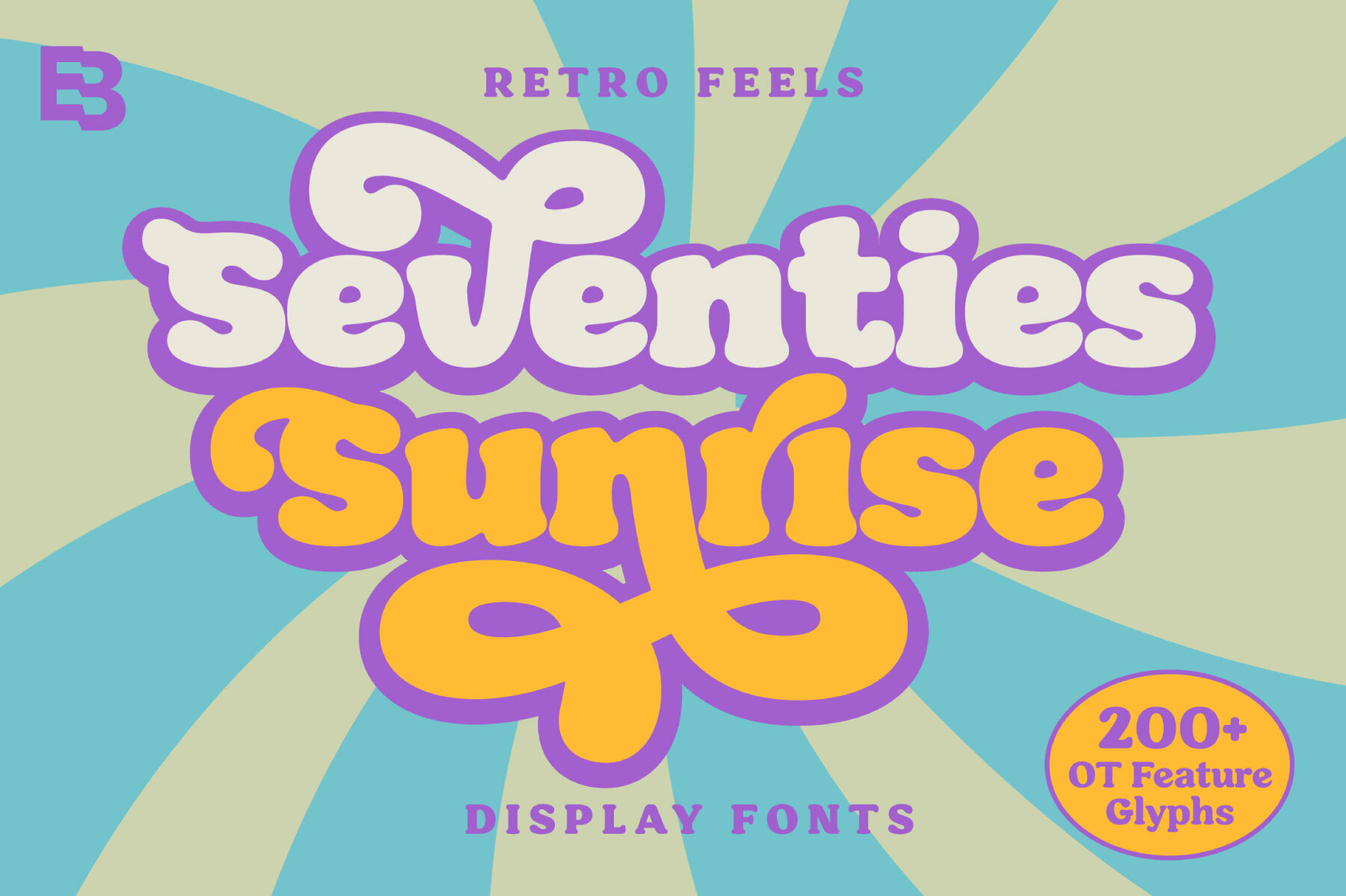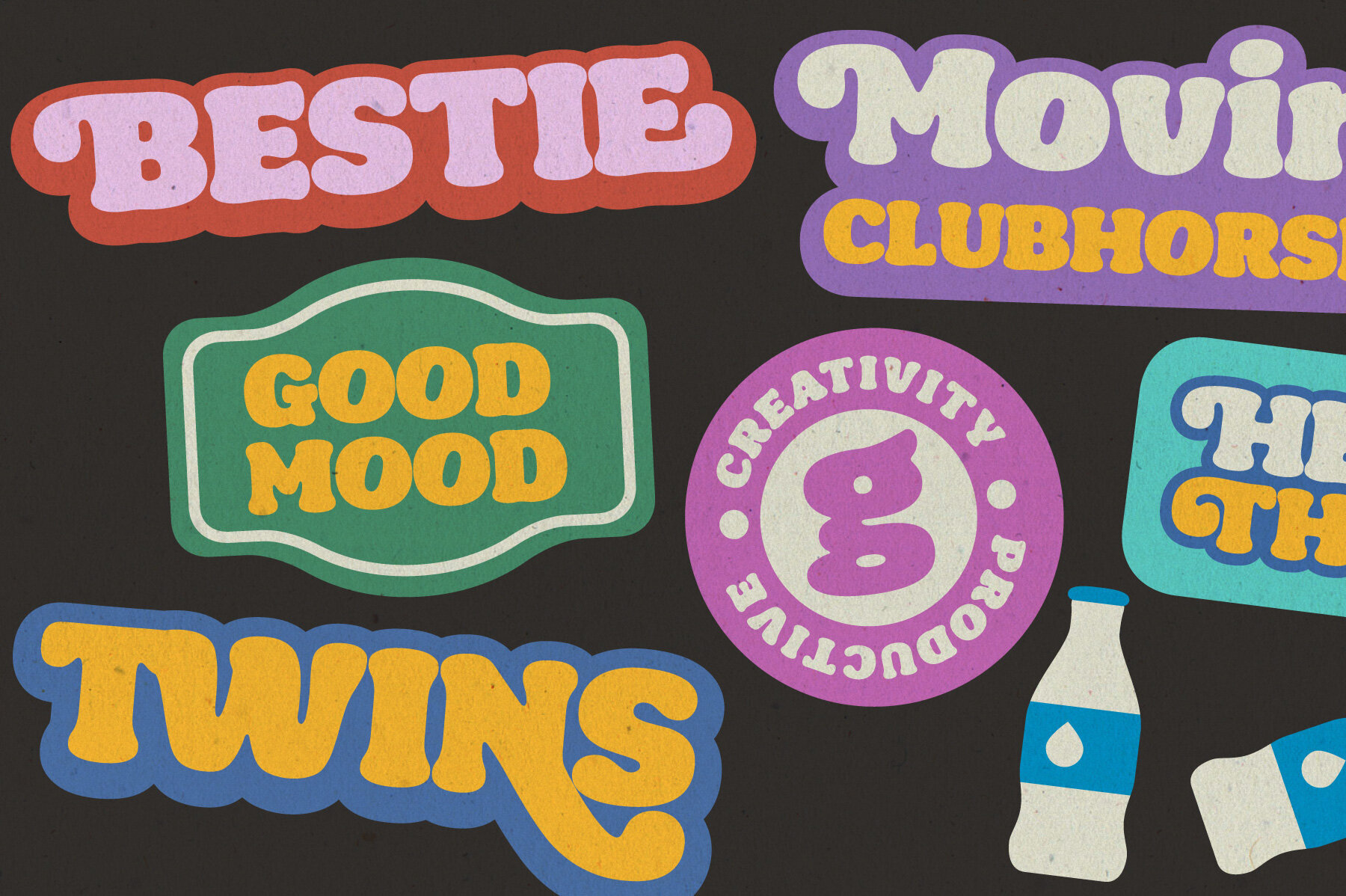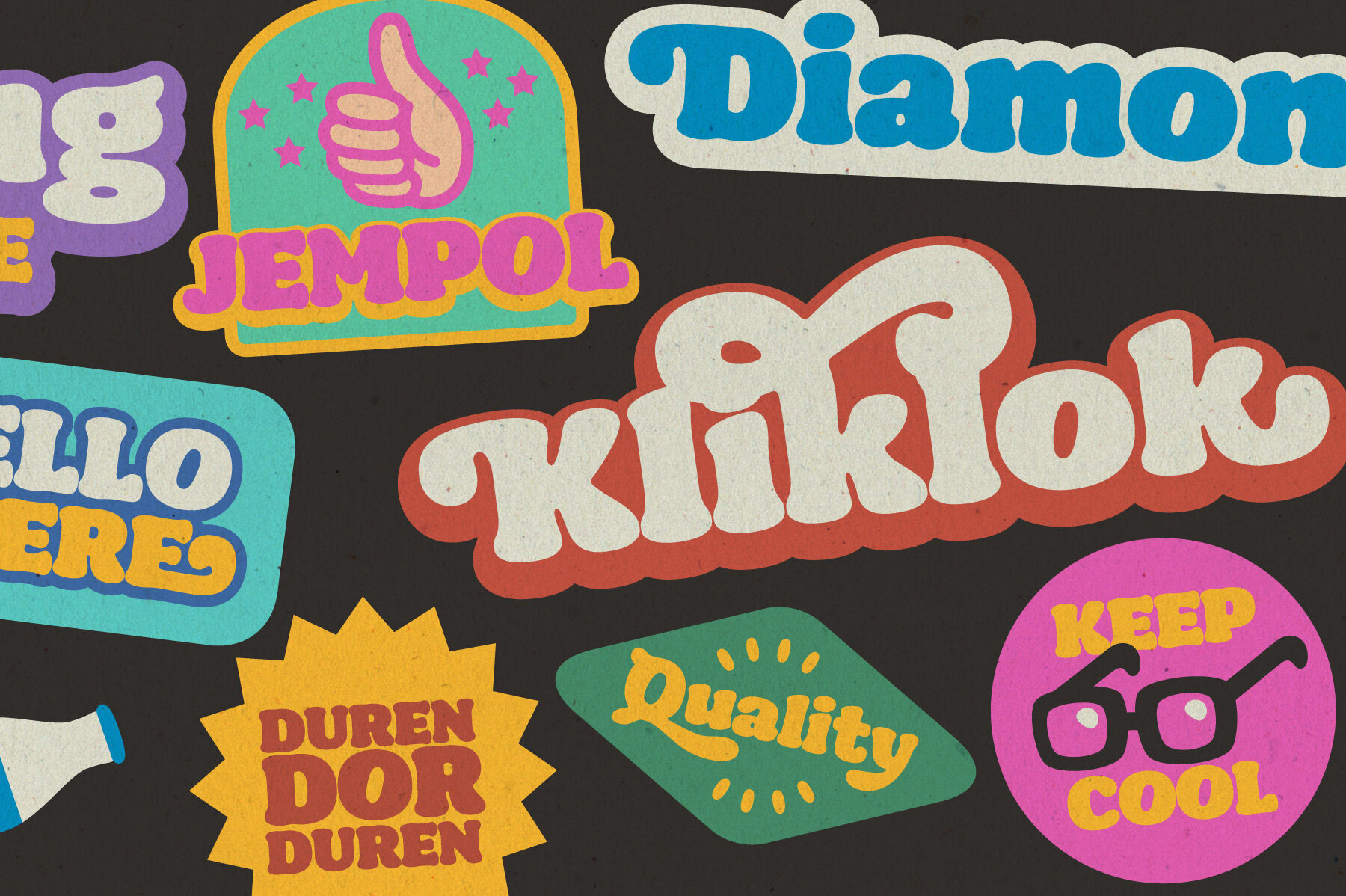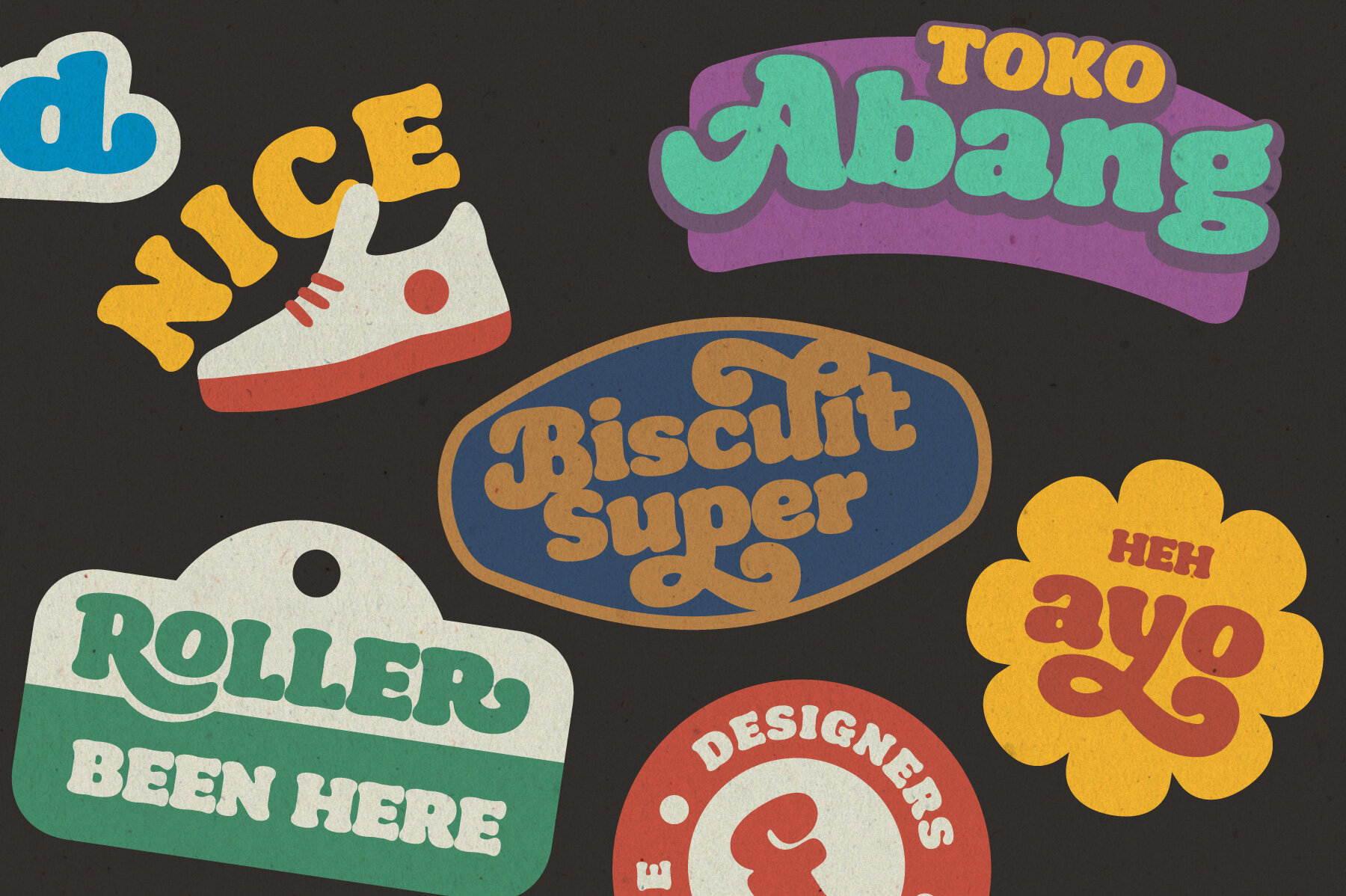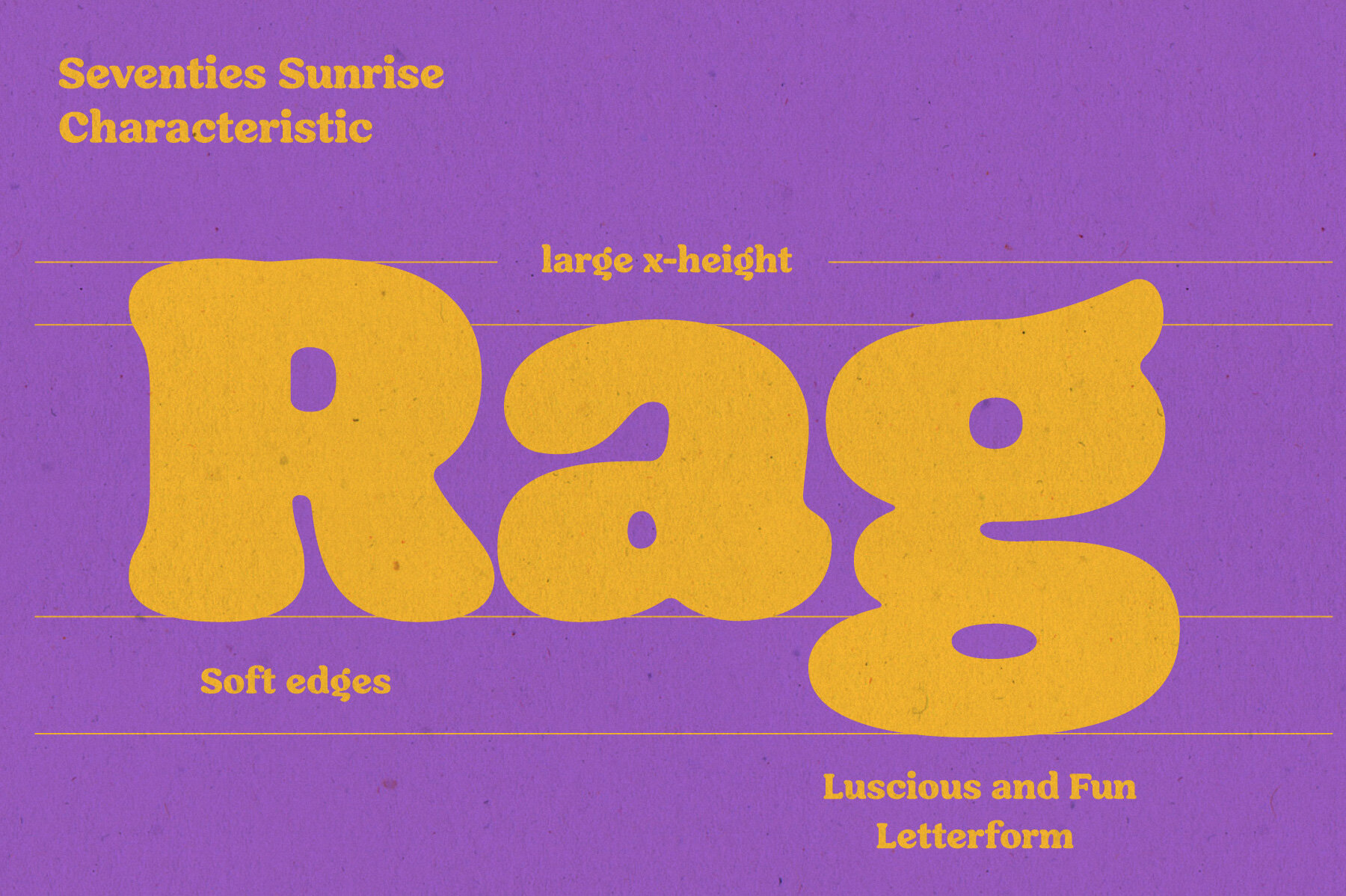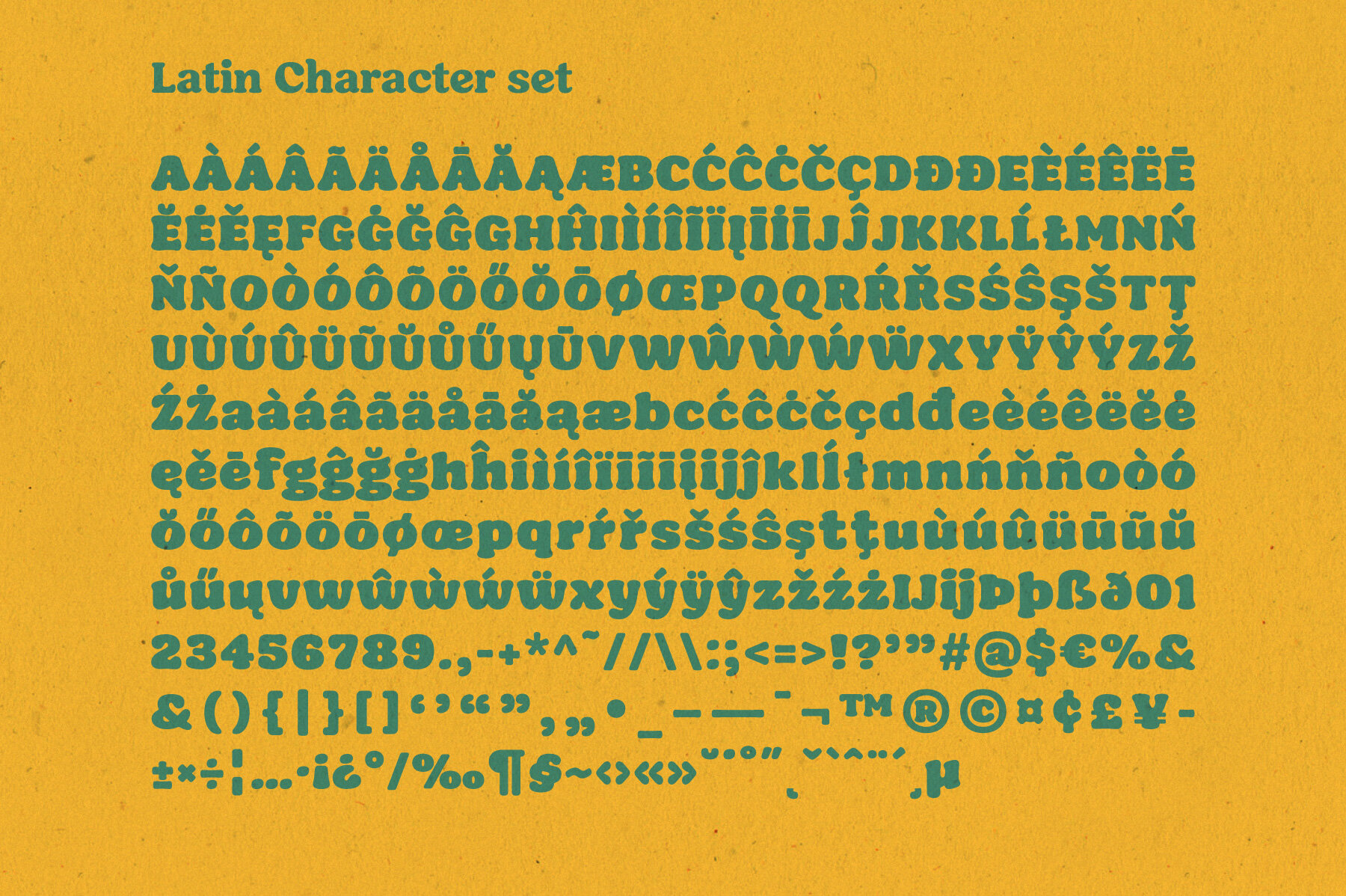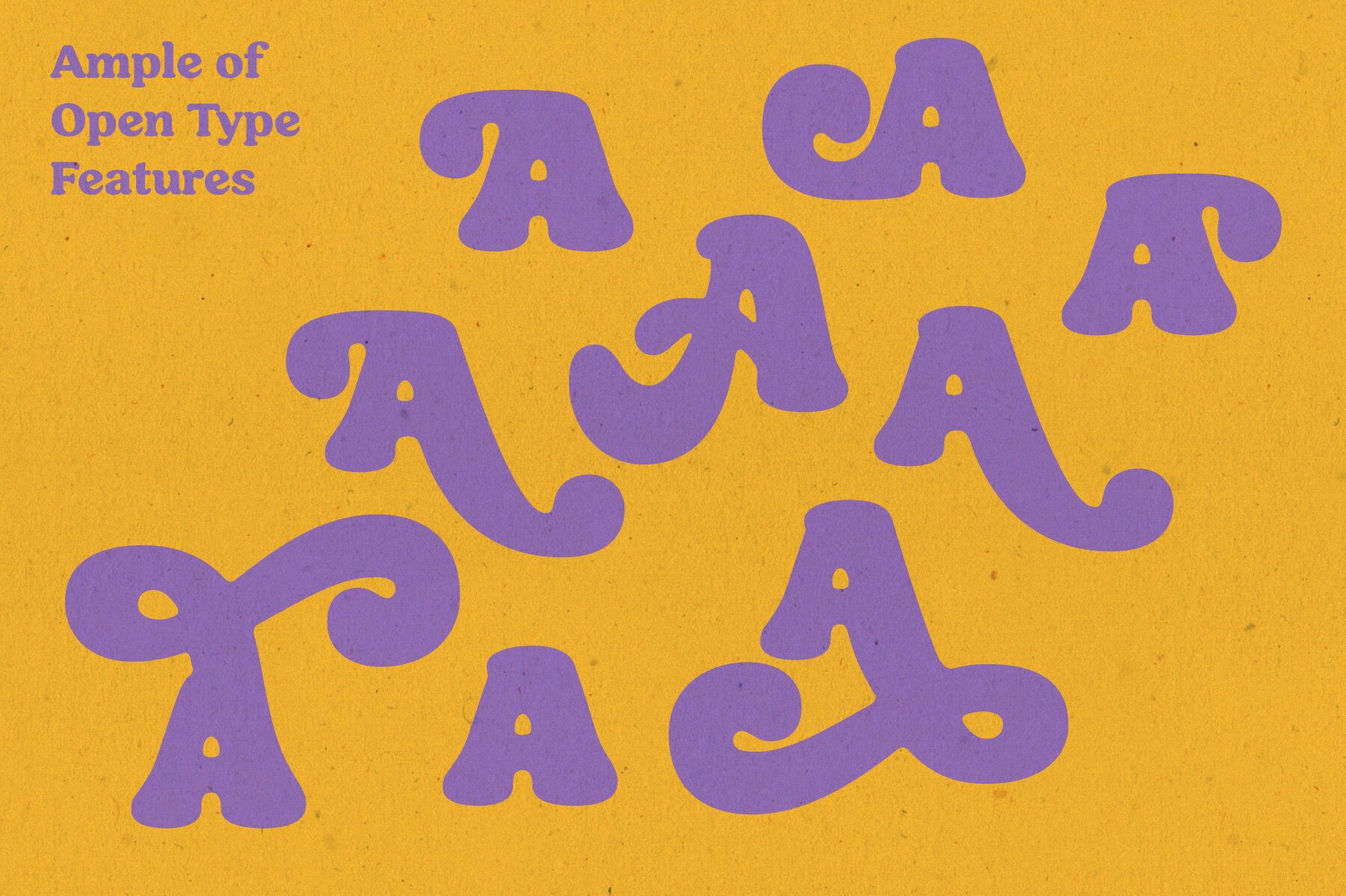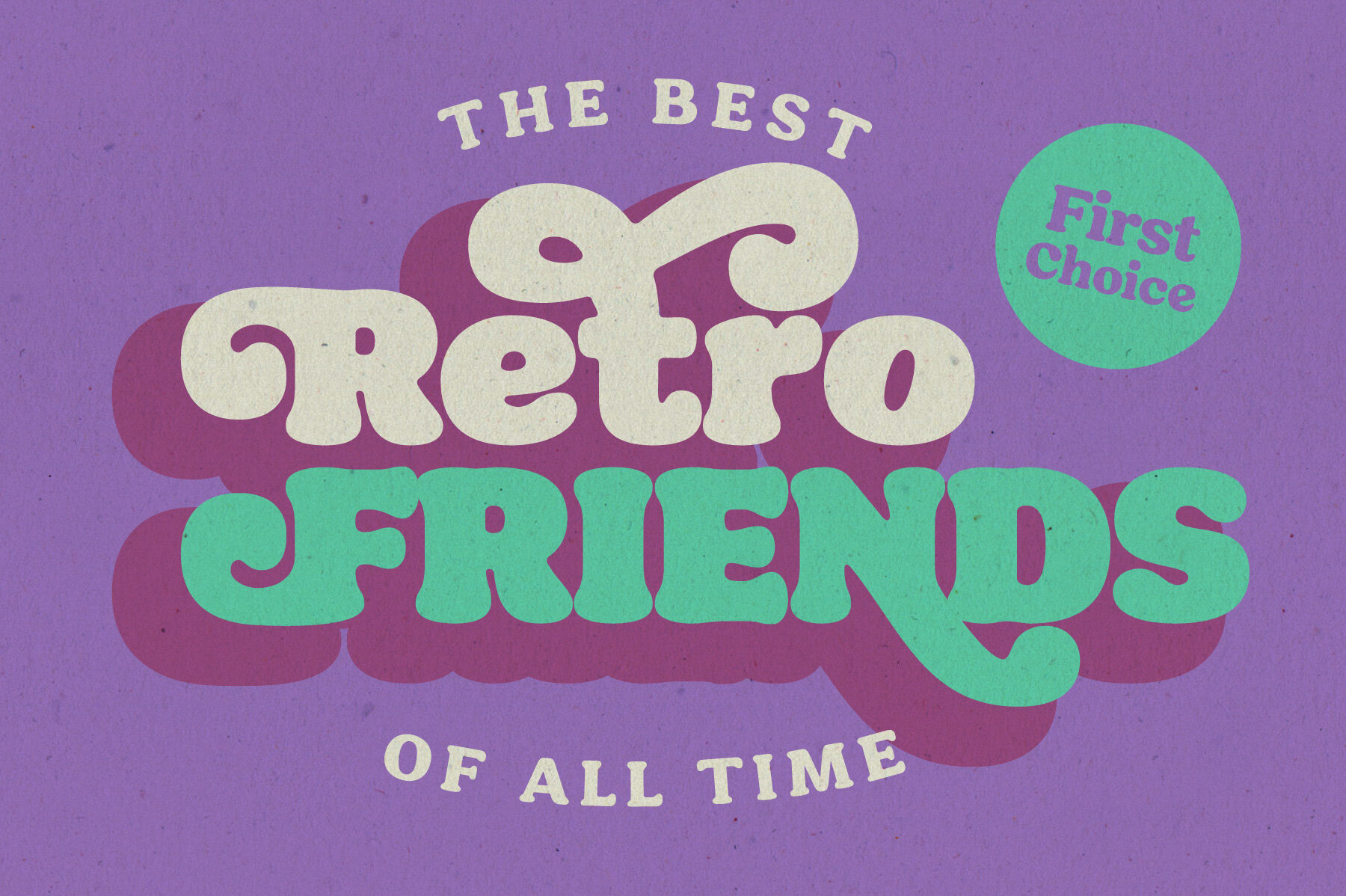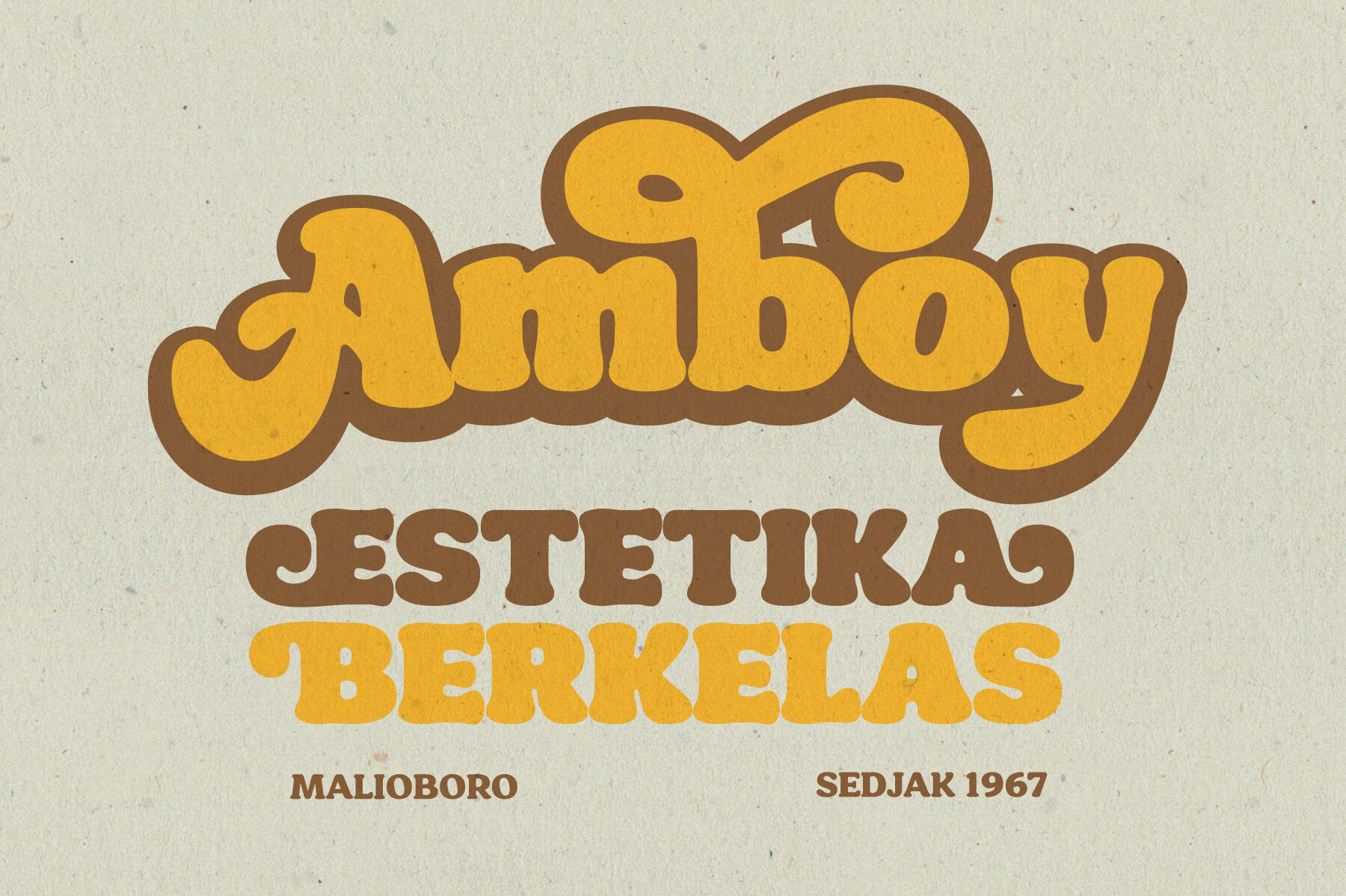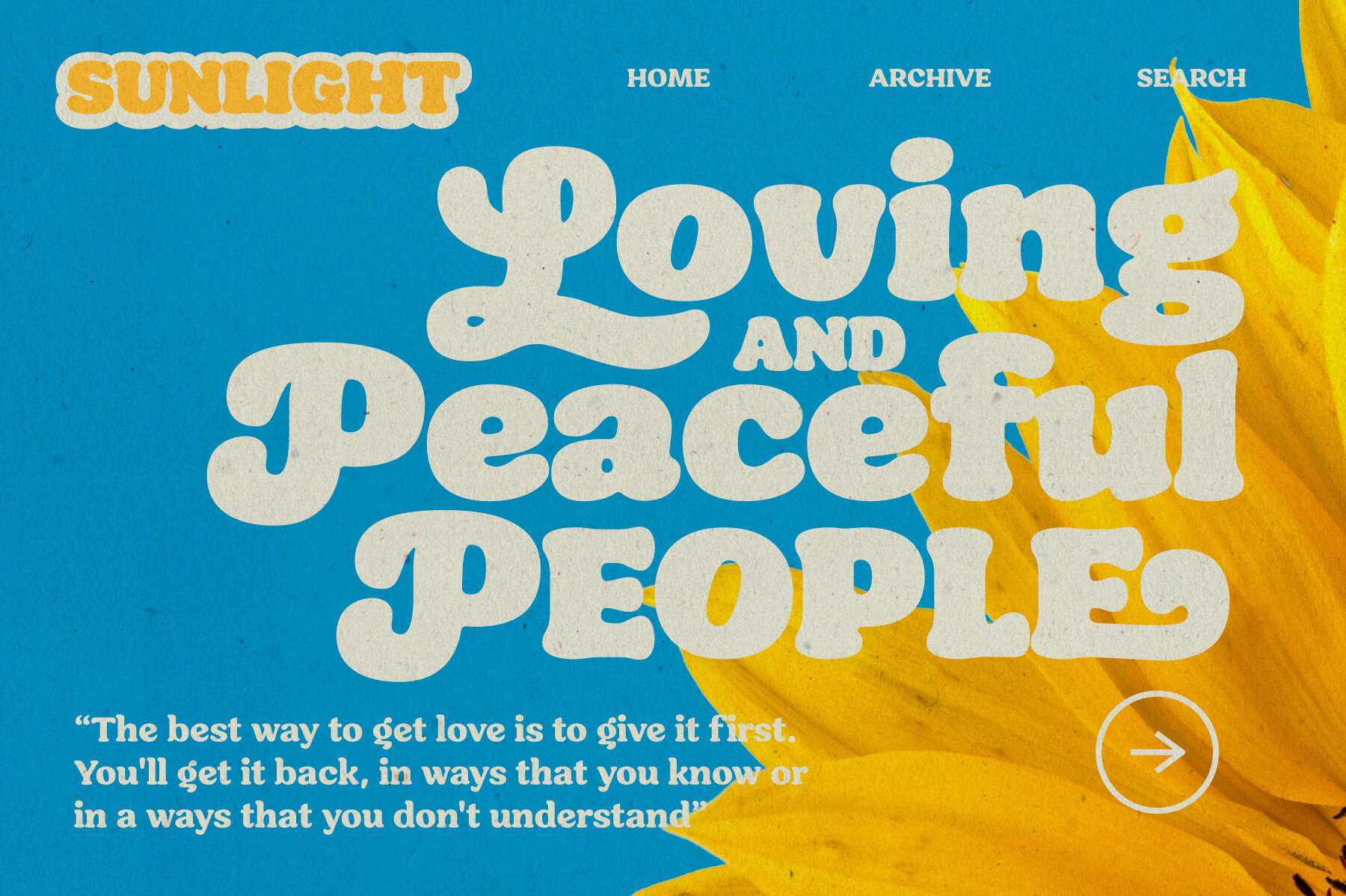
Seventies Sunrise Font
Seventies Sunrise is a font family that harkens back to the fun-loving and groovy vibe of the 1970s. Its bold and playful style is perfect for designers who want to capture the retro feel of this iconic era. This font is a great choice for logo design, branding, product design, and website design, as it has a distinctive retro style that is sure to make any design stand out. This font family features thick, bold strokes and unique letter shapes that make it easy to use in a variety of creative ways. The fun-loving and retro style of Seventies Sunrise make it particularly well-suited for designs aimed at younger audiences, or those that require a playful retro vibe. It’s also a popular choice for merchandise designs, such as t-shirts, posters, and other promotional materials, as it can create a strong visual impact that resonates with consumers and creates a sense of nostalgia. Seventies Sunrise is a highly creative and distinctive font that is sure to catch the eye in any design application. Its bold and playful style makes it an excellent choice for a range of design fields, including advertising, packaging design, and social media graphics. This font family is a must-have for designers who want to add a retro feel to their designs while also keeping them fresh and modern.